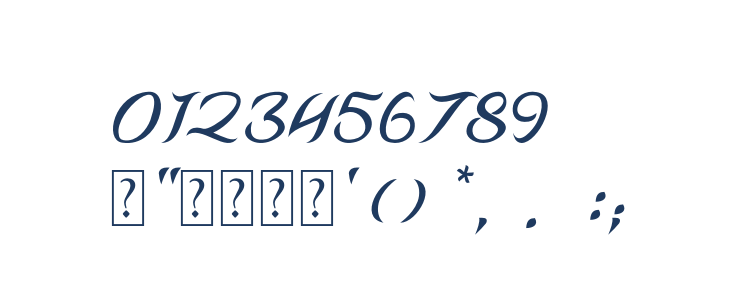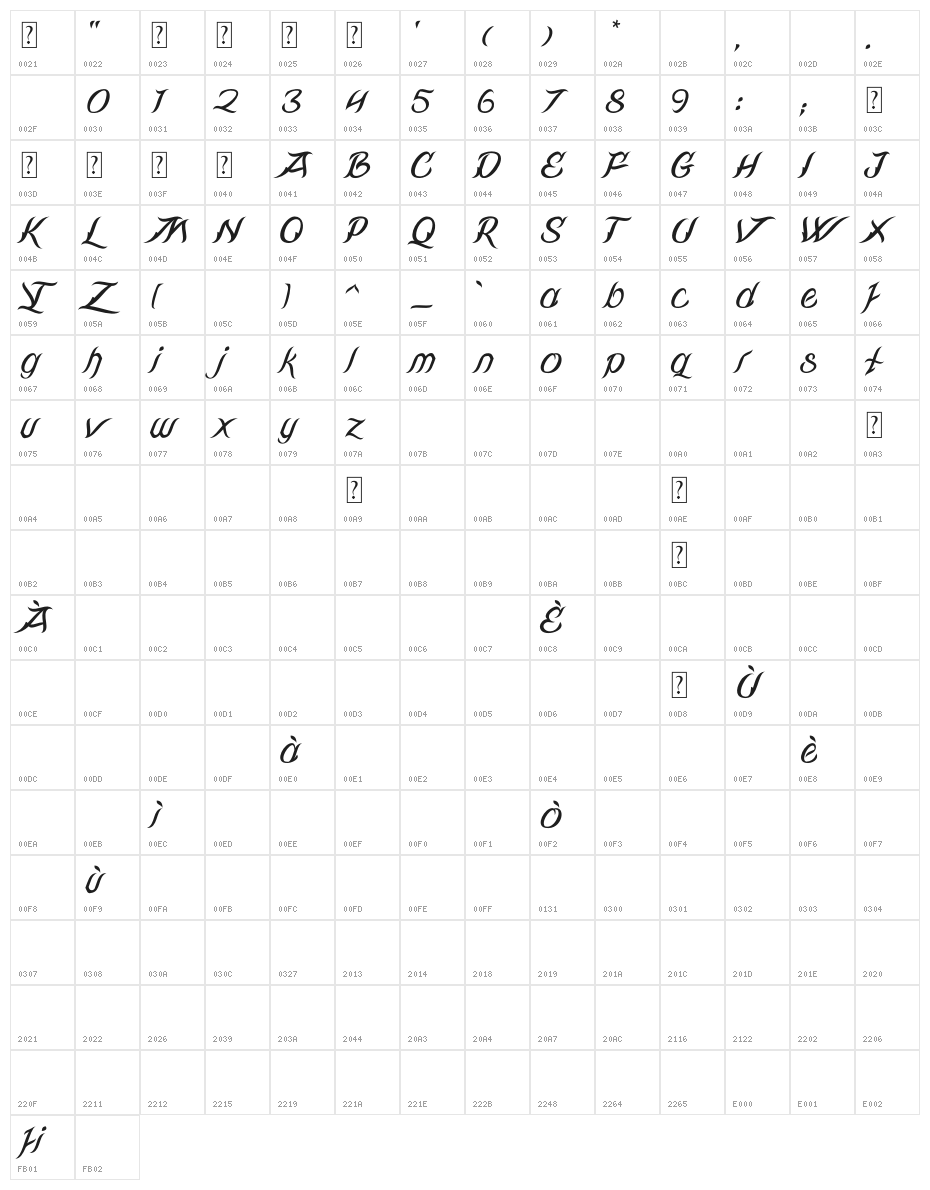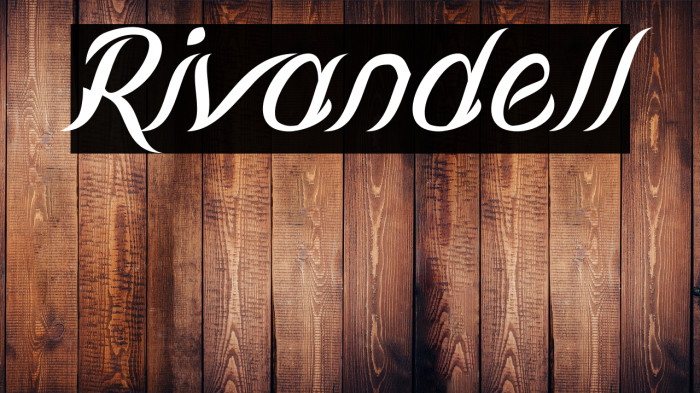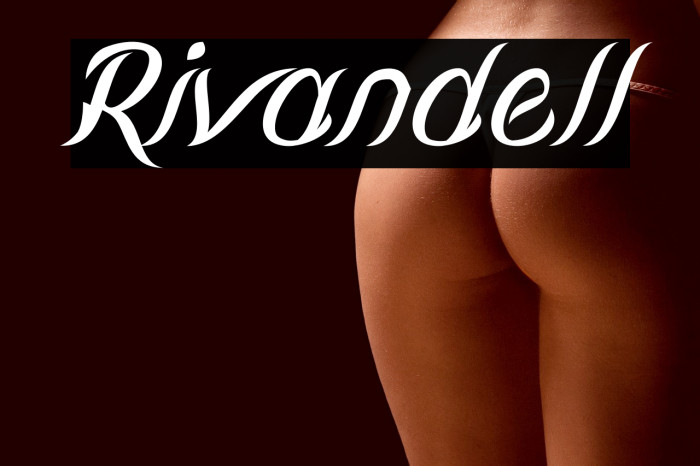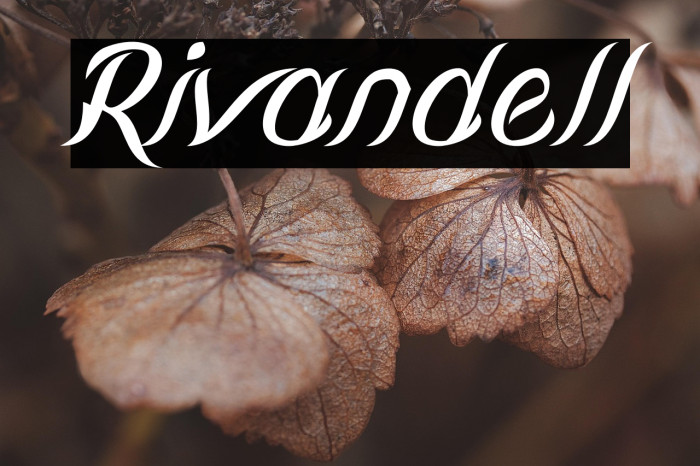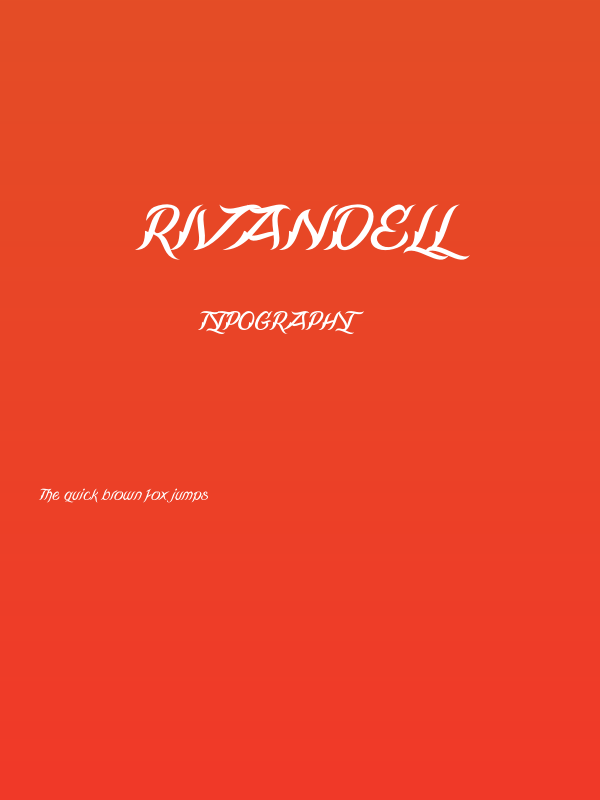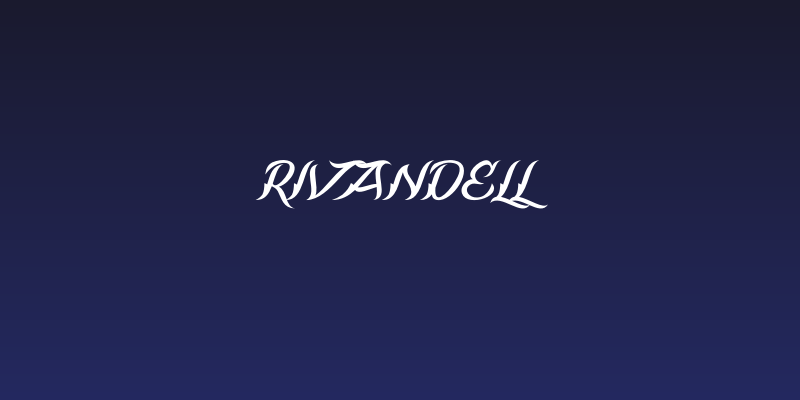
Rivandell Font
Rivandell Description
This font features a flowing, elegant script style that evokes a sense of sophistication and grace. The characters are designed with smooth, sweeping curves and a slight slant, giving it a dynamic and fluid appearance. The uppercase letters are particularly ornate, with extended strokes and decorative flourishes that add a touch of drama. The lowercase letters maintain a consistent style, with rounded forms and a harmonious balance between thick and thin strokes. The numerals are designed to match the overall aesthetic, featuring similar curves and a cohesive look. Special characters are included, each crafted to blend seamlessly with the rest of the font. This font is ideal for projects that require a touch of elegance and refinement.
A flowing, elegant script font with ornate uppercase and harmonious lowercase letters from Uncategorized fonts.
- Proposed Projects: Wedding invitations, luxury branding, elegant posters, and formal event programs.
- Overall Style: Elegant, Sophisticated
- Use Case: Logos, Invitations, Decorative text